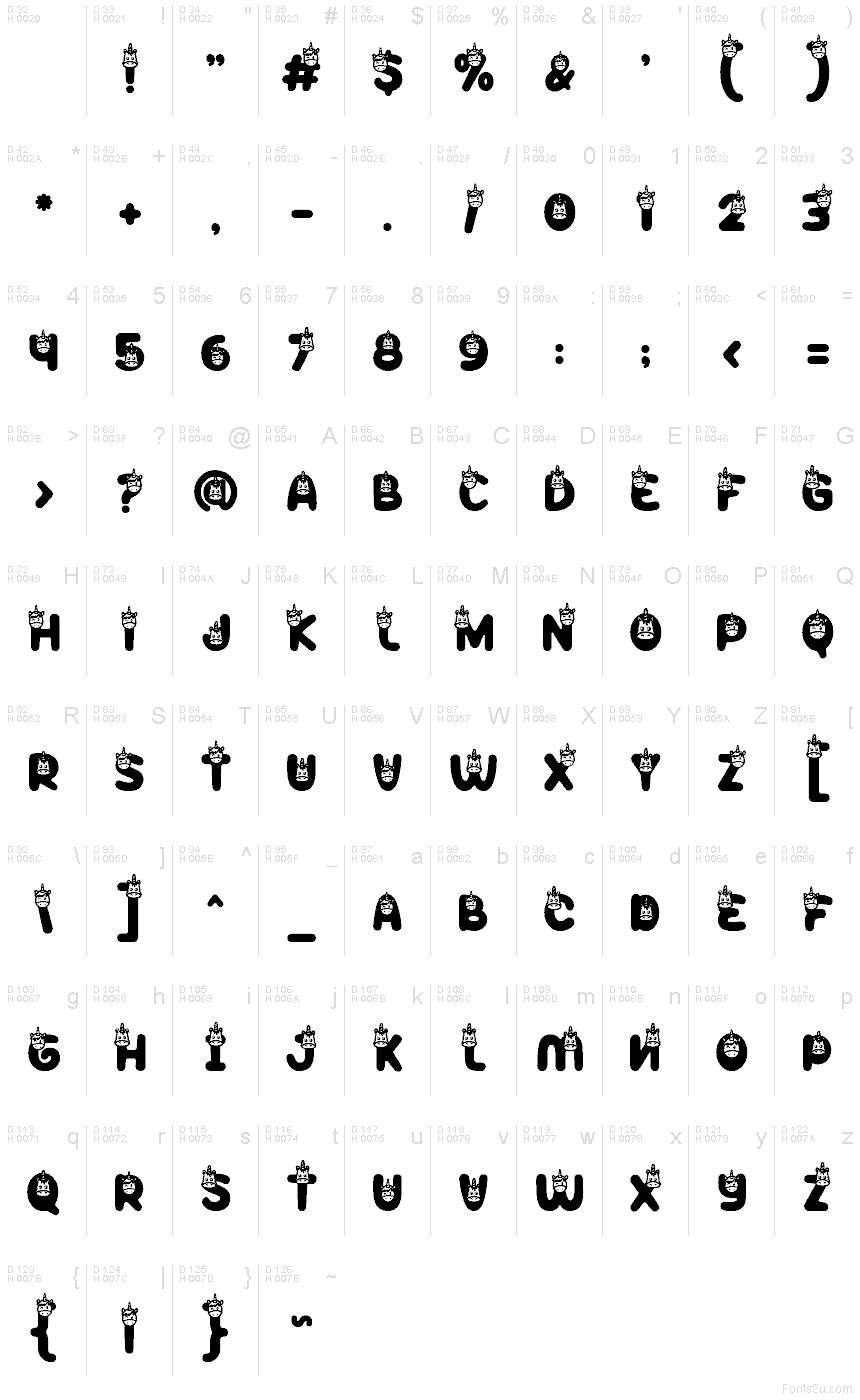
Peppy Pegasus Head
Peppy Pegasus Head font by PutraCetol Studio is a big and bold decorative display font with cartoonish details in its design. Its artwork is irregular which gives the letters a casual and humorous vibe that doesn’t take itself too seriously. All of this creates its lively look which is the main component in achieving attractive typographic results.